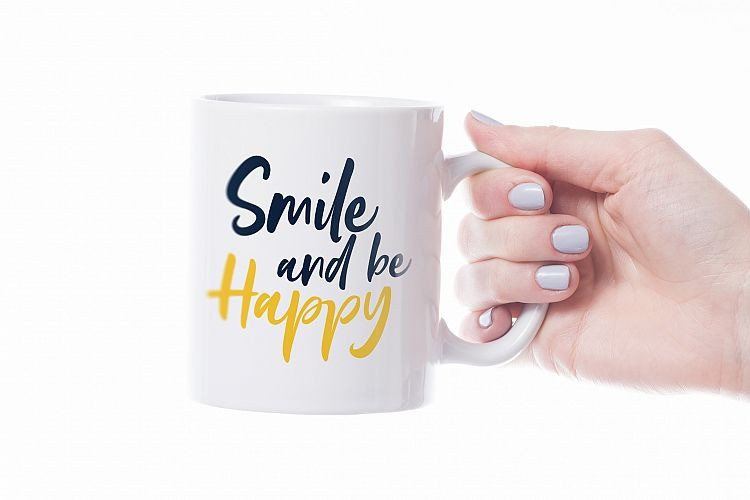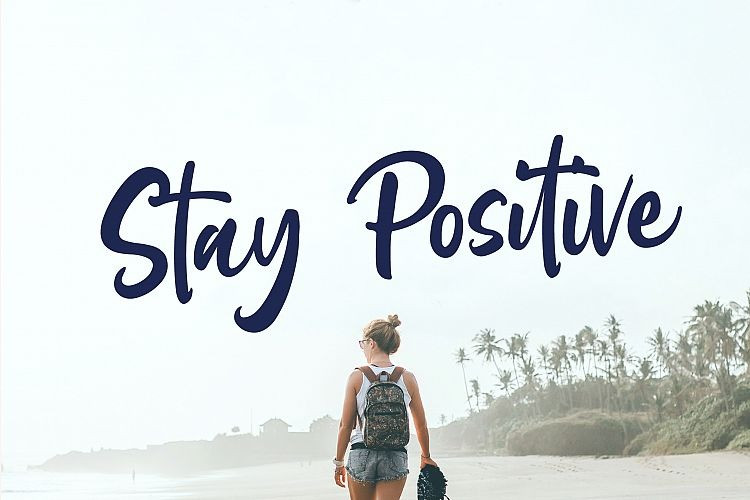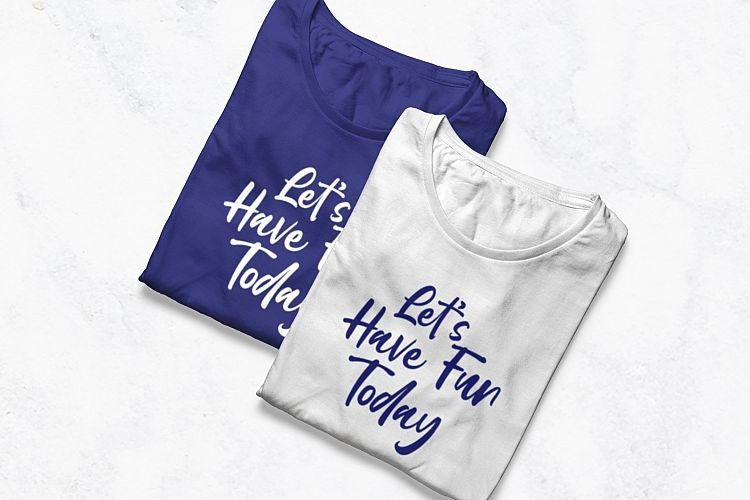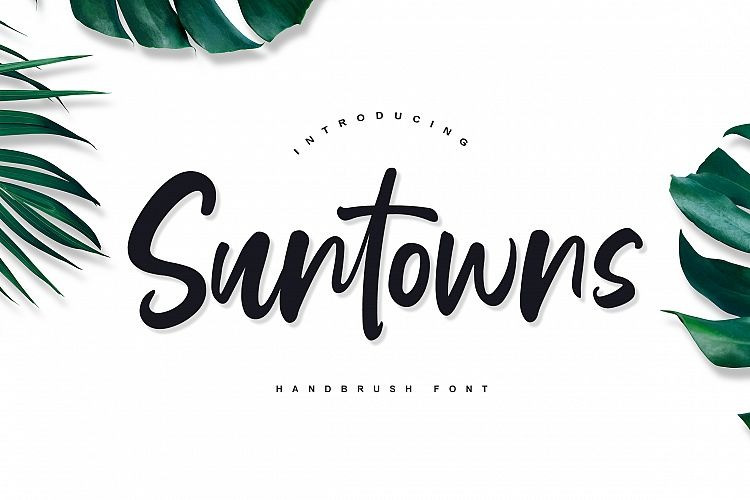
Suntowns Script Font
Hello friend. Suntowns Font is a feminine handbrush font for all of your graphic design needs! Featuring a playful brush script, and a quirky all caps sans serif, this duo can add style and joy to any of your designs. This font have smooth with natural and carefully handmade font. This font is suitable for banner, flyer, tshirt print, brand pacakging, business card, etc. This font can easier help your project. It’s featured with 50 Ligatures and end glyph a,i,u. It can help you to feel more naturally smooth handbrush. Enjoy it.